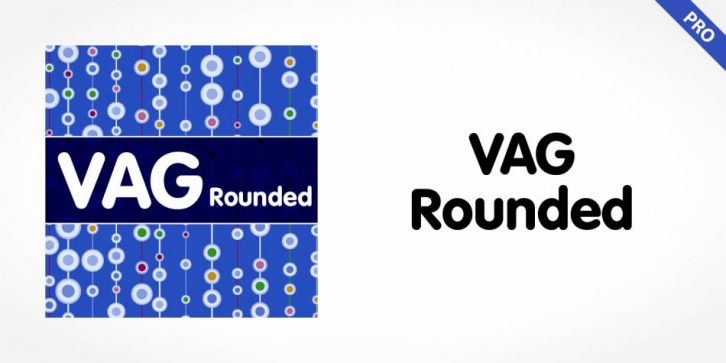
VAG Rounded Pro is a sans serif font published by SoftMaker.
VAG Rounded is a modification of 19th-century grotesques. Exceptional in this typeface is the rounded stroke endings. Use this typeface for technical texts, instruction manuals, or advertising.